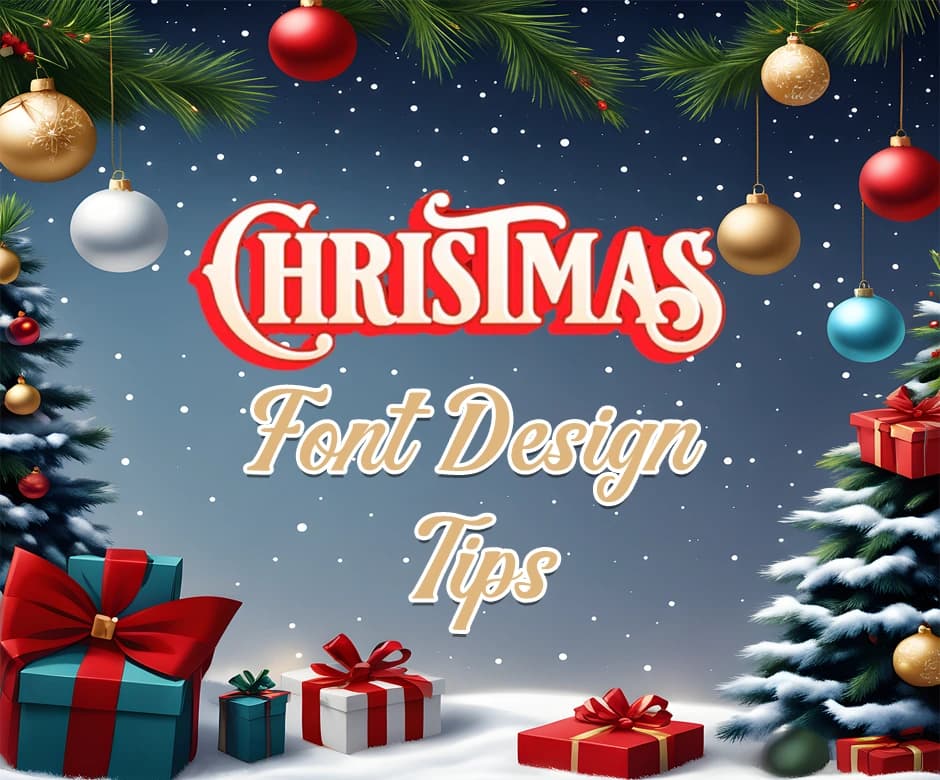
Christmas is the perfect time to make your content stand out, and the right font can instantly bring a festive message to life. Typography plays an important role in setting the mood, whether you’re designing holiday promotions, social media posts, greeting cards, or website banners.
From elegant scripts to playful display fonts, Christmas typography helps communicate warmth, joy, and celebration.
In this article, we’ll explore practical Christmas font design tips to help you create eye-catching, readable, and memorable holiday content that truly captures the spirit of the season.
Fonts play a vital role in shaping how Christmas content is perceived by an audience. The right type of Christmas fonts instantly communicates the festive mood, whether it’s warmth, joy, elegance, or fun.
Christmas-themed fonts help capture attention, evoke seasonal emotions, and make messages feel more personal and celebratory.
From marketing campaigns to digital posts and printed materials, fonts influence readability and visual appeal.
Here are some of the best Christmas font design tips that you can utilize for your Holiday content:
Fancy text styles like script or decorative fonts add elegance and a festive feel to Christmas designs. You can quickly create these styles using Fancy Text Generator, which helps you preview multiple font variations instantly.
Fancy text works best for headlines, greetings, or short phrases rather than long paragraphs.
Bubble text creates a fun, cheerful vibe that suits playful Christmas themes. With Bubble Letter Generator, you can easily transform regular text into rounded, bubbly styles for social media or festive graphics. Pair bubble text with simple backgrounds so it stays readable and eye-catching.
While festive fonts add personality, pairing them with clean, simple fonts ensures clarity. Use decorative Christmas fonts for headlines and combine them with readable sans-serif or serif fonts for body text.
This balance keeps your content visually appealing while maintaining easy readability across different platforms.
Glitched text adds a modern and creative twist to Christmas content, especially for digital designs.
Glitched Text Generator allows you to experiment with distortion effects without complex design tools. Use glitched text sparingly for keywords or short headings to keep the design clear.
Proper spacing and alignment enhance the overall look of Christmas typography. Adequate letter spacing, line height, and consistent alignment prevent clutter and help festive fonts look polished. Even highly decorative fonts benefit from clean layout choices that allow the design to breathe.
Christmas content appears across multiple formats, from mobile screens to printed materials.
Always test your font choices in different sizes and resolutions to ensure they remain legible and visually appealing. This step helps avoid design issues and ensures a consistent holiday experience for your audience.
Choosing the right fonts can make a powerful difference in how your Christmas content is received. By combining festive creativity with readability, you can design visuals that feel joyful, engaging, and professional.
Whether you use fancy text, bubble styles, or subtle glitch effects, thoughtful typography helps convey the holiday spirit effectively. Remember to balance decoration with clarity, test fonts across formats, and stay consistent with your message. With these tips, your holiday designs can truly stand out and leave a lasting impression.
Script, decorative, and playful display fonts work well for Christmas designs. They help create a festive and cheerful holiday mood.
Decorative fonts are best used for headings or short phrases. For body text, simple and readable fonts work better.
Using two or three fonts is usually enough. This keeps the design clean and visually balanced.
Yes, testing fonts helps ensure readability across devices and formats. It also prevents layout and spacing issues.